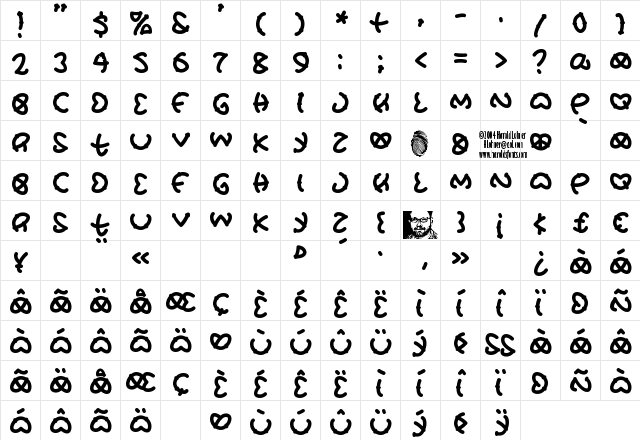
PretzUnsalted Regular
Design Context for PretzUnsalted Typeface
PretzUnsalted is a composed and adaptable typeface that performs quietly and consistently across a wide range of design contexts.